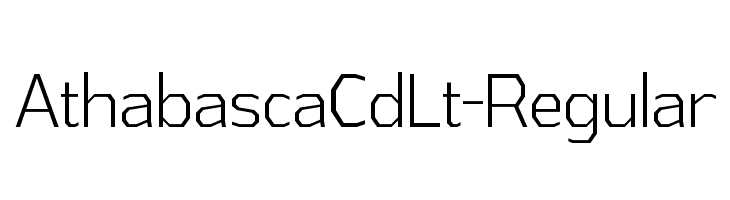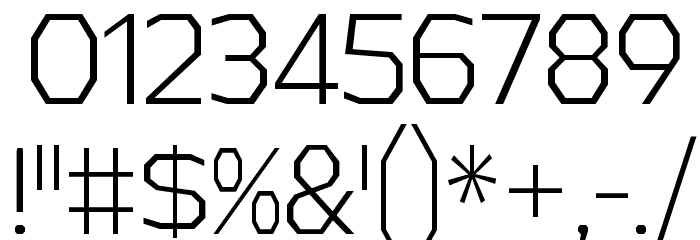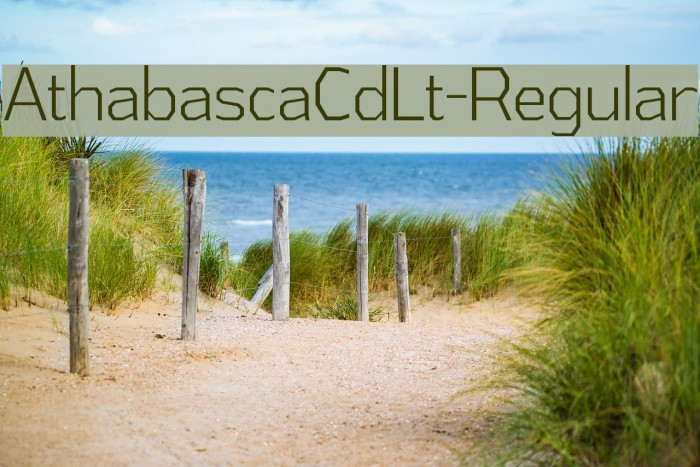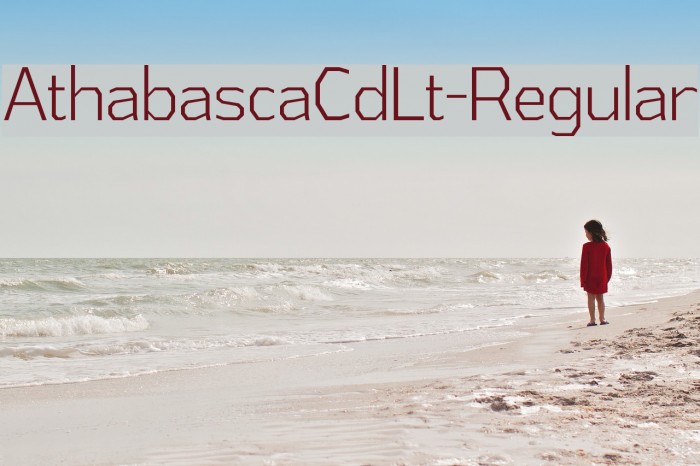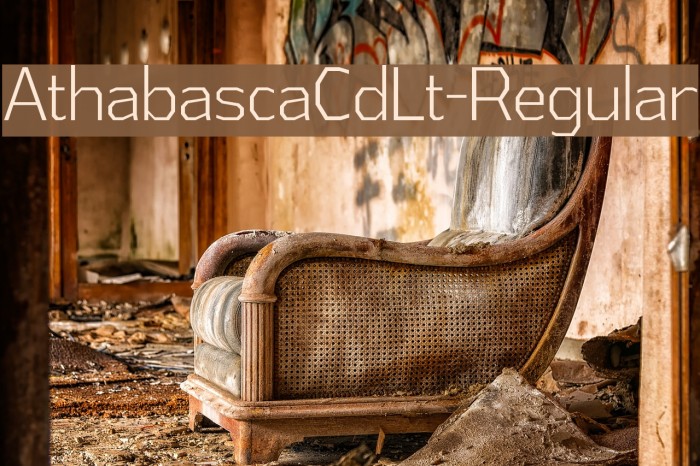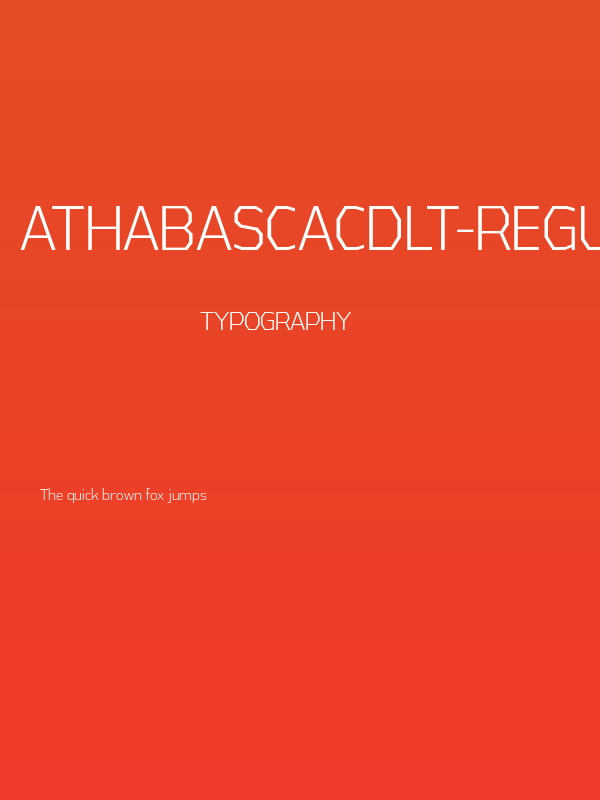
AthabascaCdLt-Regular Font
AthabascaCdLt-Regular Description
This font features a geometric and modern design with clean, straight lines and sharp angles. The uppercase and lowercase letters maintain a consistent height, creating a uniform appearance. The numerals are distinct and easy to read, with a similar geometric style. Special characters are well-defined and integrate seamlessly with the overall design. The font's structure is minimalistic yet bold, making it suitable for contemporary design projects.
| Proposed Projects | Ideal for modern branding, digital interfaces, and minimalist design projects. |